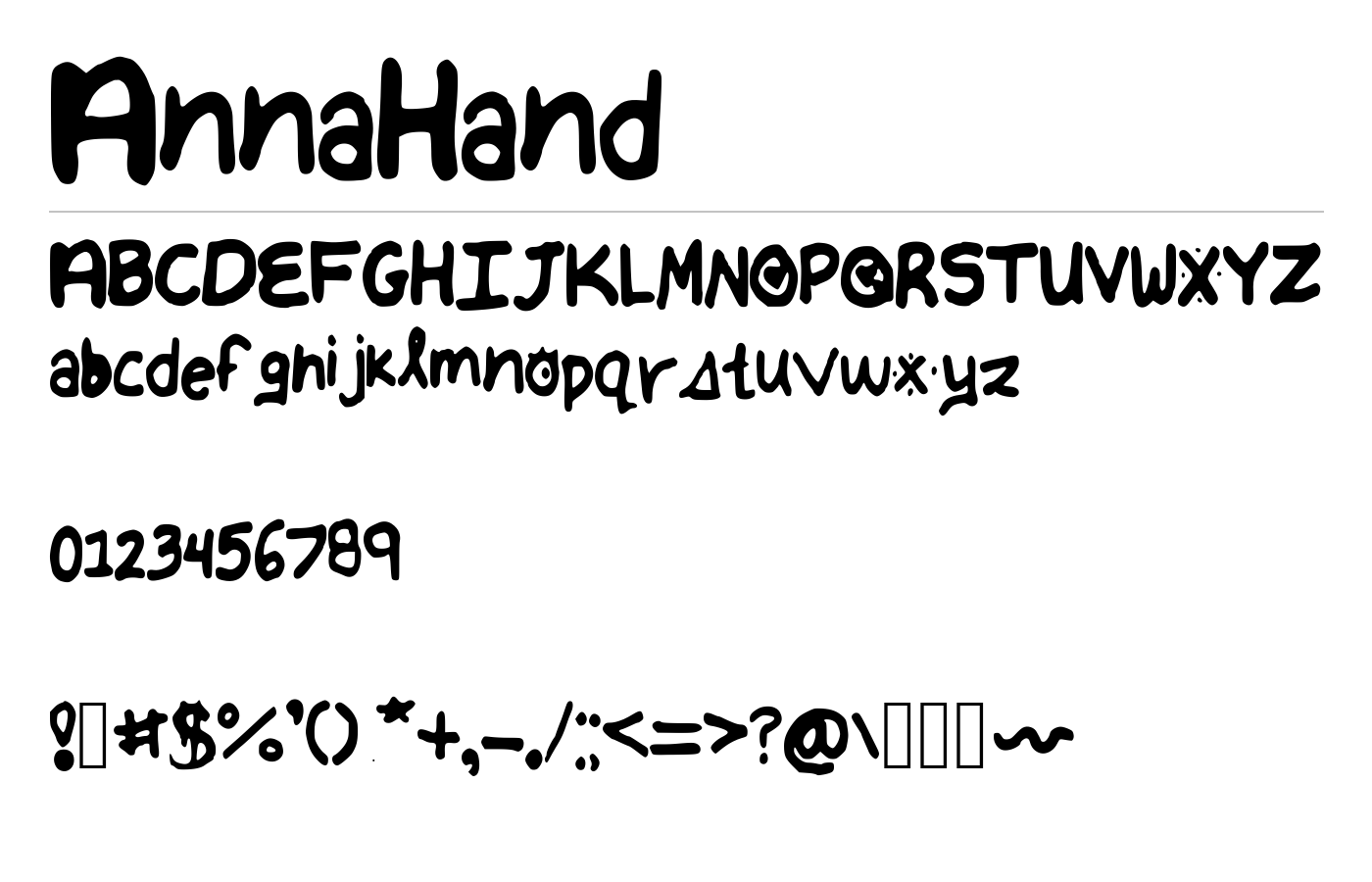
AnnaHand is a playful, casual handwritten font with irregular, rounded letterforms that give it a friendly and approachable feel. Its bold weight and slightly condensed width make it ideal for lively headlines, informal branding, and creative projects where a personal, hand-drawn touch is desired. This font works well in designs that aim for a fun, youthful vibe, such as children’s books, greeting cards, or quirky packaging.
AnnaHand Font
About AnnaHand Font